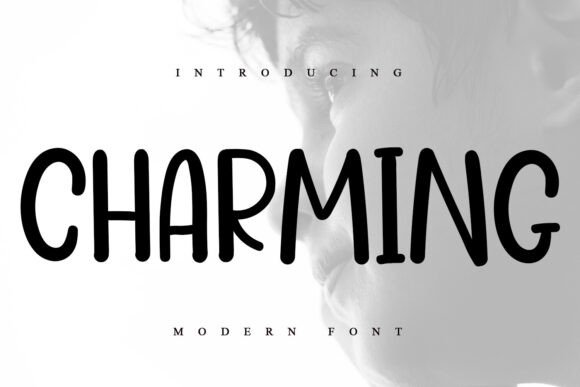
Discover the Magic of ‘Charming’ Font: Elevate Your Creative Projects
Have you ever been in the middle of a design project, pouring your heart and soul into it, only to hit a creative roadblock because of one thing: the font? I recall a particularly frustrating experience while working on a wedding invitation project. My client wanted something elegant, yet modern, and I was determined to deliver. After hours of scrolling through font libraries, I stumbled upon a font that was ‘charming’ – it had the perfect blend of simplicity and uniqueness. That’s when I knew I had to share this discovery with fellow designers and creative hobbyists.
The ‘Charming’ Font: A Game-Changer for Creatives
‘Charming’ is more than just a font; it’s a new wave of artistic expression designed to breathe life into your creative pursuits. Whether you’re crafting a striking YouTube banner, a logo mockup, a wedding invitation, an ID card, a flyer, or any craft project, ‘Charming’ is here to make your work stand out. Its aesthetic appeal and unique character are tailored to reinforce your brand image, foster growth, and progression.
What Makes ‘Charming’ So Special?
‘Charming’ embodies simplicity while radiating uniqueness, making it a high-impact typeface designed to leave a lasting impression. Here are some of the standout features:
- ✨ Elegant and Modern Design: Perfect for projects that require a touch of sophistication.
- ✅ Versatile: Suitable for a wide range of creative projects.
- 🔥 High-Impact: Designed to grab attention and leave a lasting impression.
An Honest Review: The Good and The Not-So-Good
- ✨ The font’s aesthetic appeal is undeniable, making any project look professional and stylish.
- ✅ It’s incredibly versatile, fitting a variety of design needs.
- 📚 The inclusion of OpenType features and glyphs adds a creative depth to projects.
- ⚠️ Some users might find the font a bit too stylized for very formal projects.
- 🤔 It might not be the best fit for body text due to its decorative nature.
The Story Behind ‘Charming’: A Designer’s Inspiration
The ‘Charming’ font was designed with the intention of bridging the gap between elegance and modernity. Inspired by classic typography and infused with contemporary flair, ‘Charming’ aims to be the go-to font for creatives looking to make a statement. The designer sought to create a typeface that was not only beautiful but also versatile, capable of adapting to various design needs.
Q: Is ‘Charming’ suitable for body text?
A: While ‘Charming’ is stunning, it’s primarily designed for titles and headings due to its decorative nature. For body text, a more straightforward font might be more readable.
Q: Does ‘Charming’ support OpenType features?
A: Yes, ‘Charming’ includes OpenType features, allowing for advanced typographic control and customization.